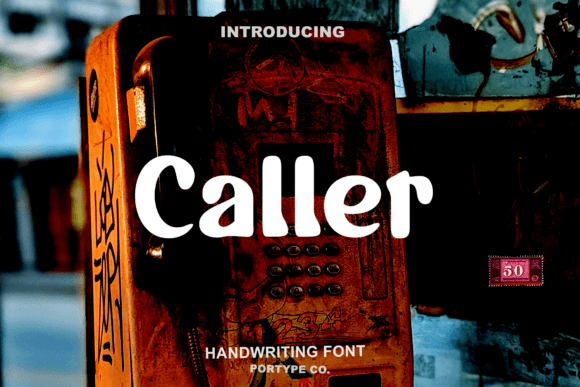
The Power of Handwritten Authenticity: Discovering Caller Font
I’ll never forget the time I was working on a wedding invitation design project, and my client specifically asked for a font that felt ‘handwritten’ and ‘personal.’ I scoured the internet, trying out font after font, but nothing seemed to capture that special something. That’s when I stumbled upon Caller font, and it was love at first sight! 💕
Caller font is an embodiment of handwritten authenticity, crafted with a blend of flowing strokes and personal flair. Each letter carries an individualized touch, mirroring the warmth and personal connection of pen-to-paper expression. In this article, I’ll share my experience with Caller font, its features, and how to make the most of it in your designs.
An Honest Review of Caller Font
• ✅ Unique, handcrafted feel that adds a personal touch to any design
• ✅ Flowing strokes and varied letterforms that mimic real handwriting
• ✅ Perfect for designs that require a human, organic feel
• ⚠️ Some letters may appear a bit inconsistent in size or spacing, which can be a minor challenge for certain design applications
• ⚠️ May not be the best fit for very formal or corporate designs, as it leans more towards a casual, personal feel
The Backstory of Caller Font
Caller font was designed with the intention of capturing the warmth and authenticity of handwritten text. Its creator wanted to craft a font that felt like it was written with a pen, rather than typed on a machine. The result is a font that’s perfect for adding a personal touch to designs, invitations, and creative projects.
Q: Is Caller font suitable for body text?
A: While Caller font is highly legible, it’s best suited for headings, titles, and short paragraphs. For longer body text, a more traditional font might be a better choice.